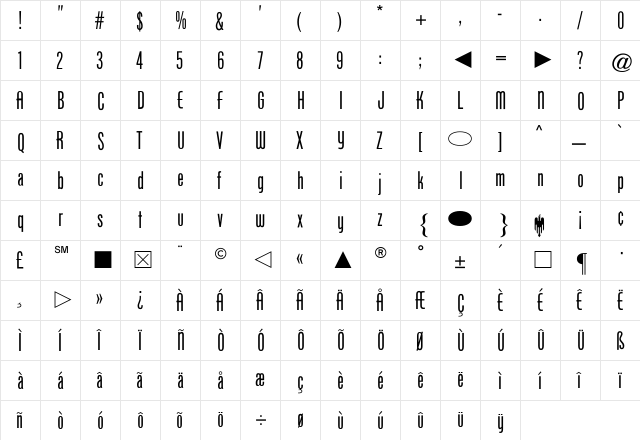
CgPhenixAmerican Regular
Design Context for CgPhenixAmerican Typeface
CgPhenixAmerican takes a measured approach to typography — its balanced proportions and neutral character make it a reliable workhorse for both digital and print work.